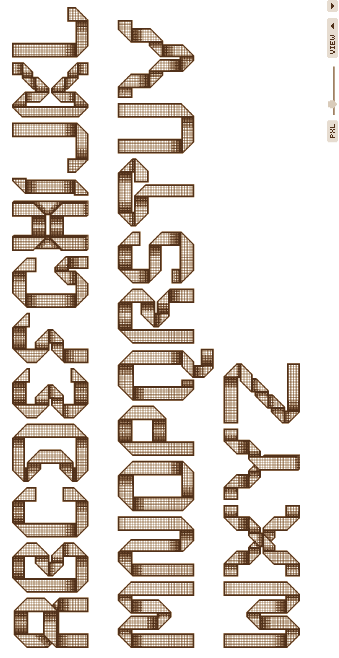
• Preview at a size slightly higher than the pixel size. Adjust the size to get a pencil shading effect. ----------------------------------- This is cloned from en origami v2. I've added the shading effect to each glyph.suggestions/comments are welcome:)
I tried to produce a pencil-drawn effect for this font.
Well done! Really cool effect!
Great work.
I love this twisted version.
Probably a lot of work... but the result is great
Am I the last one? Nobody told me something about this... But, What a pretty gem of font!!
hey...nice work da
awesome!!!!!.....This should be the top pick...........
this would have been one of the best entries in handmadecomp. outstanding.
amazing work well done'
Sick! the amount of work alone, i take of my head, cool effect
Man. Unique work.
@Kradrling: I have copied the uppercase letters to lower case letters. Thanks! :)
Amazing work
Keep it up...
GREAT WORK
what about numbers?